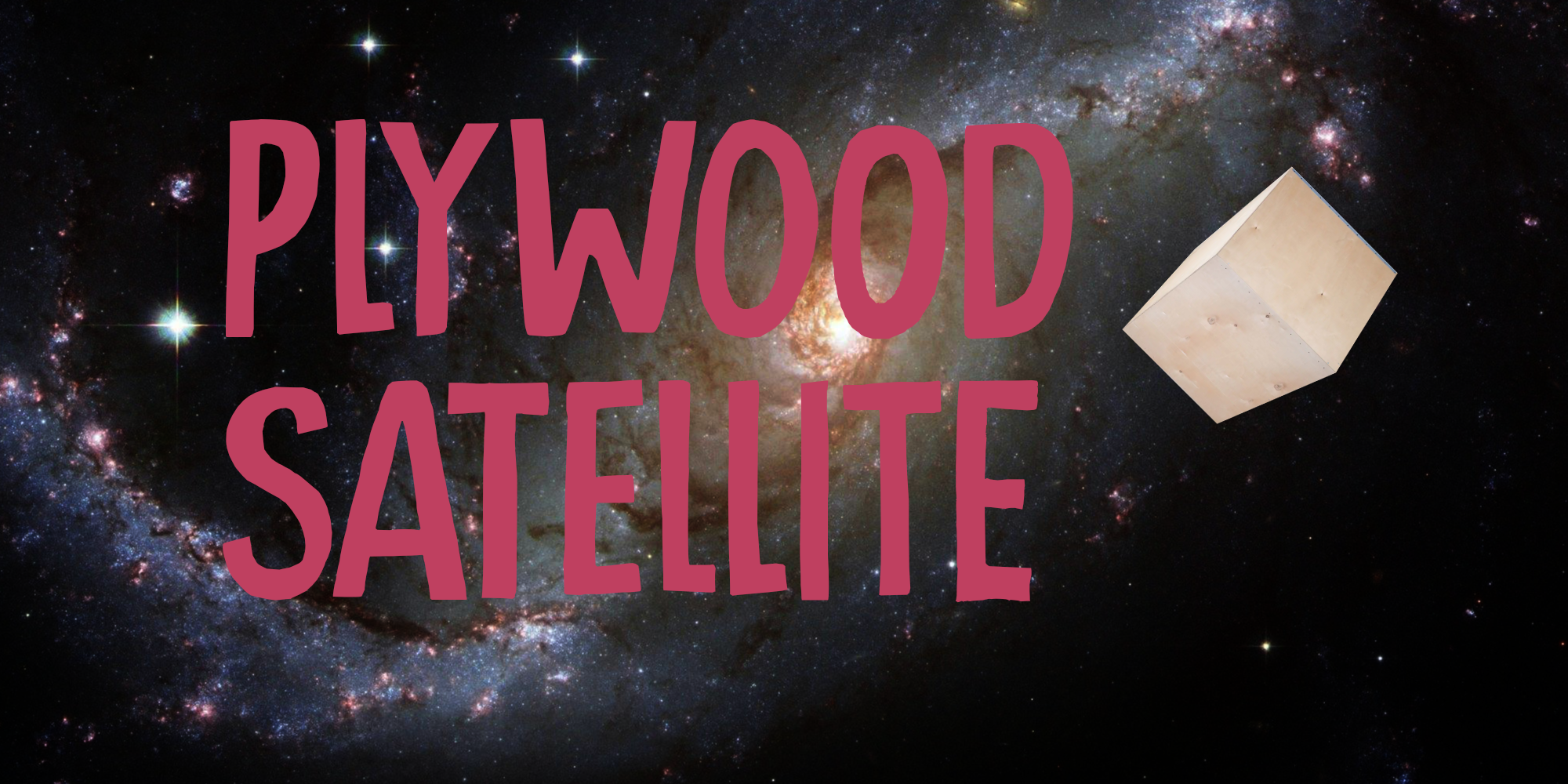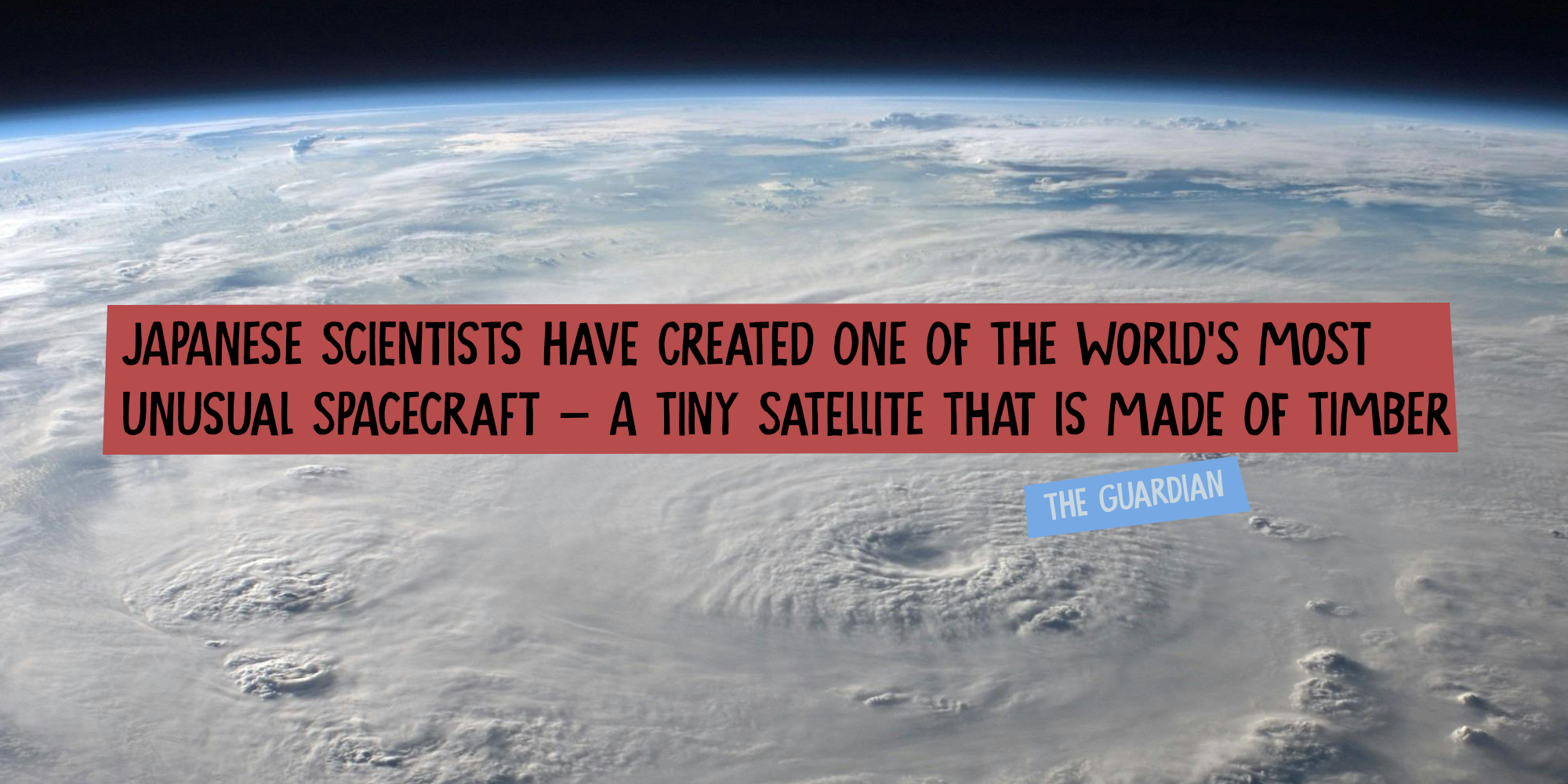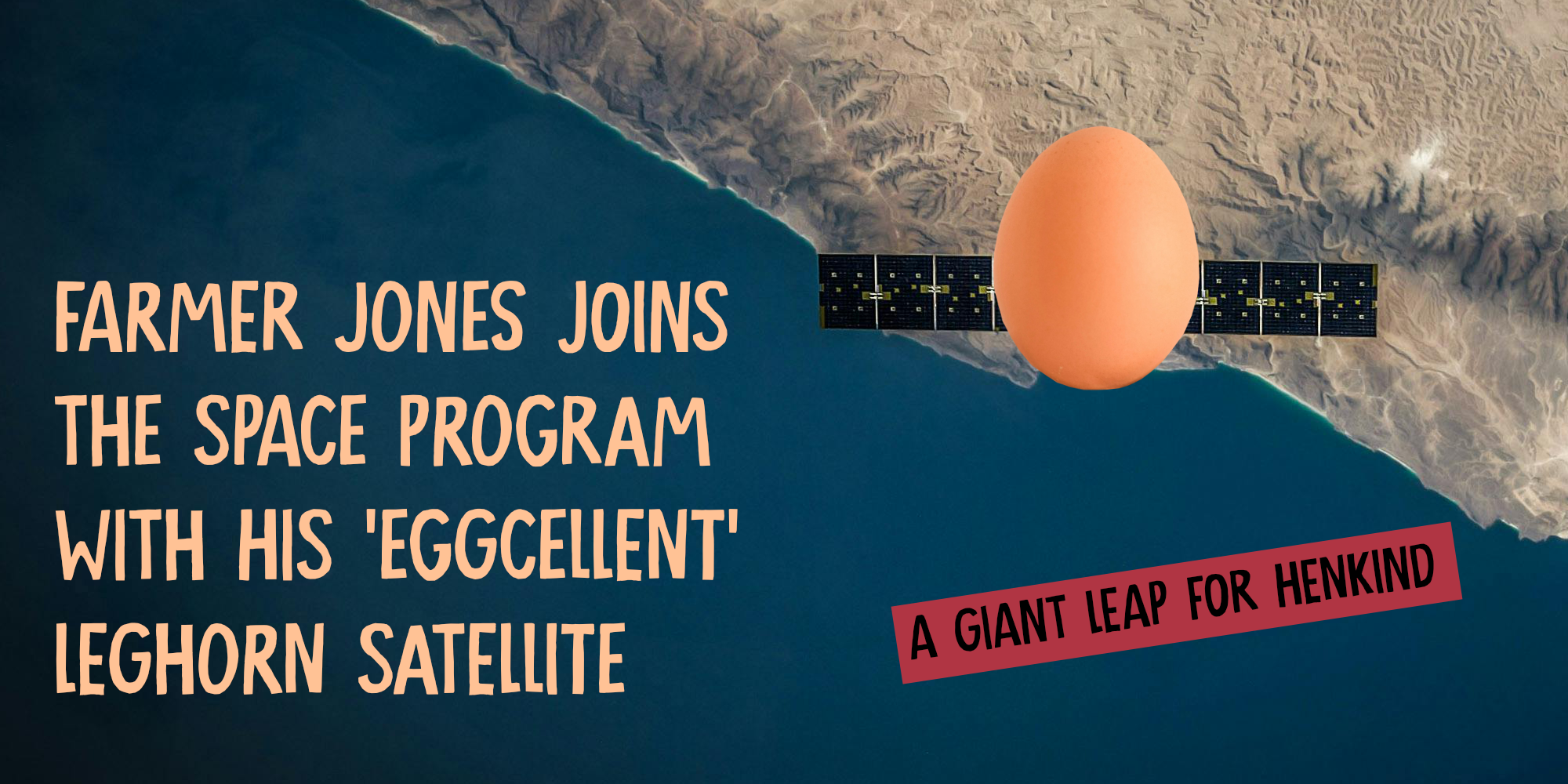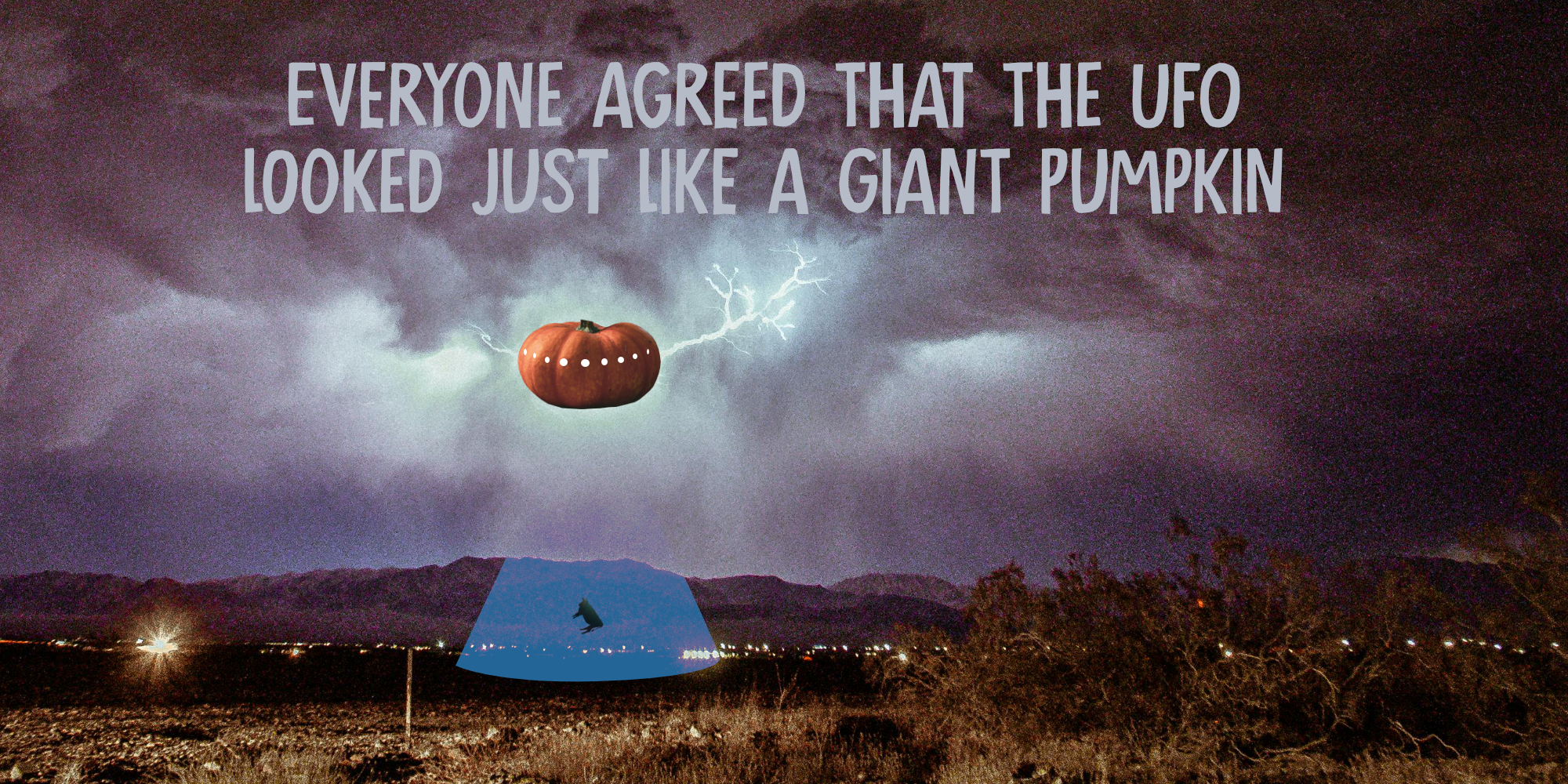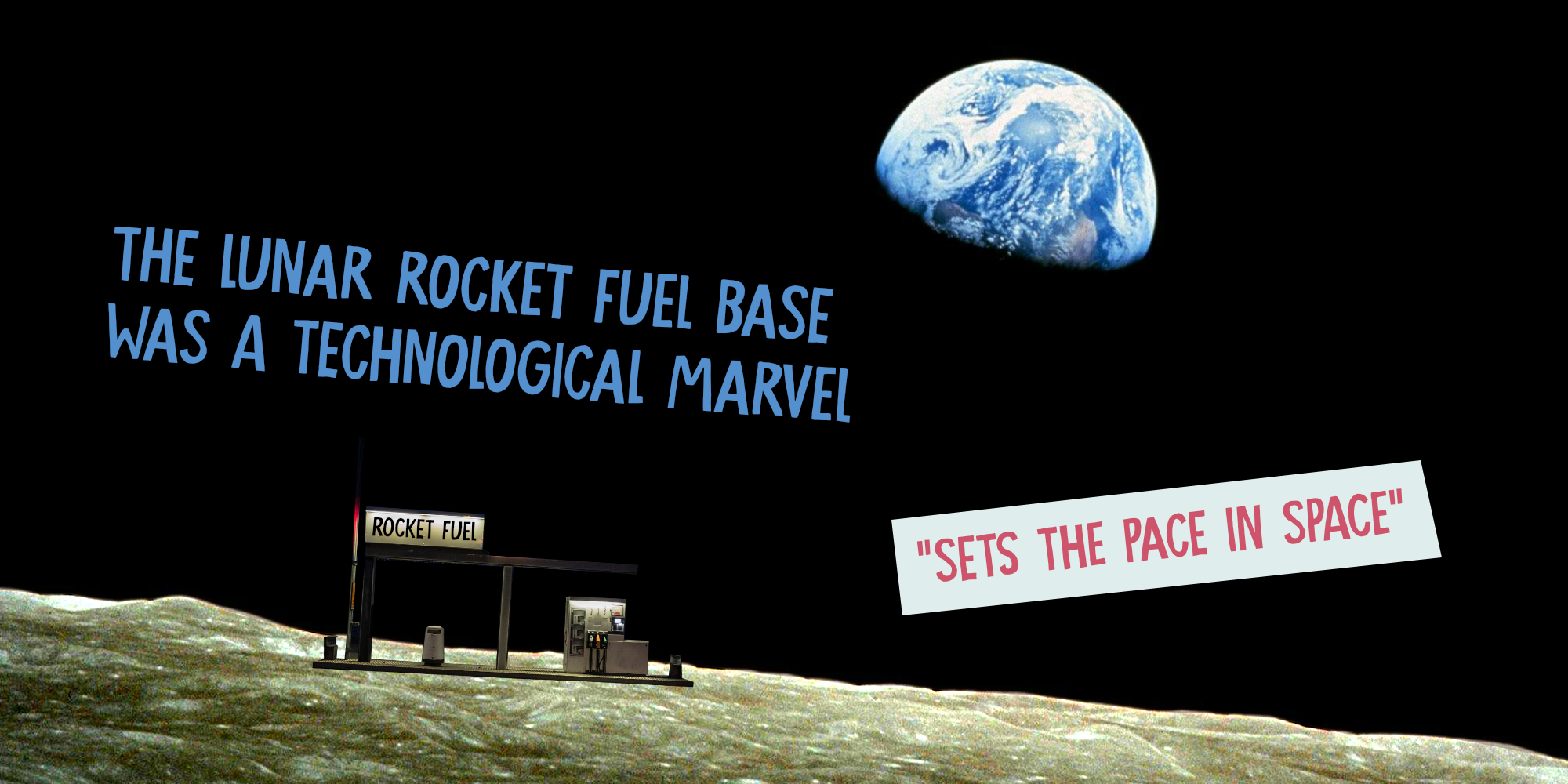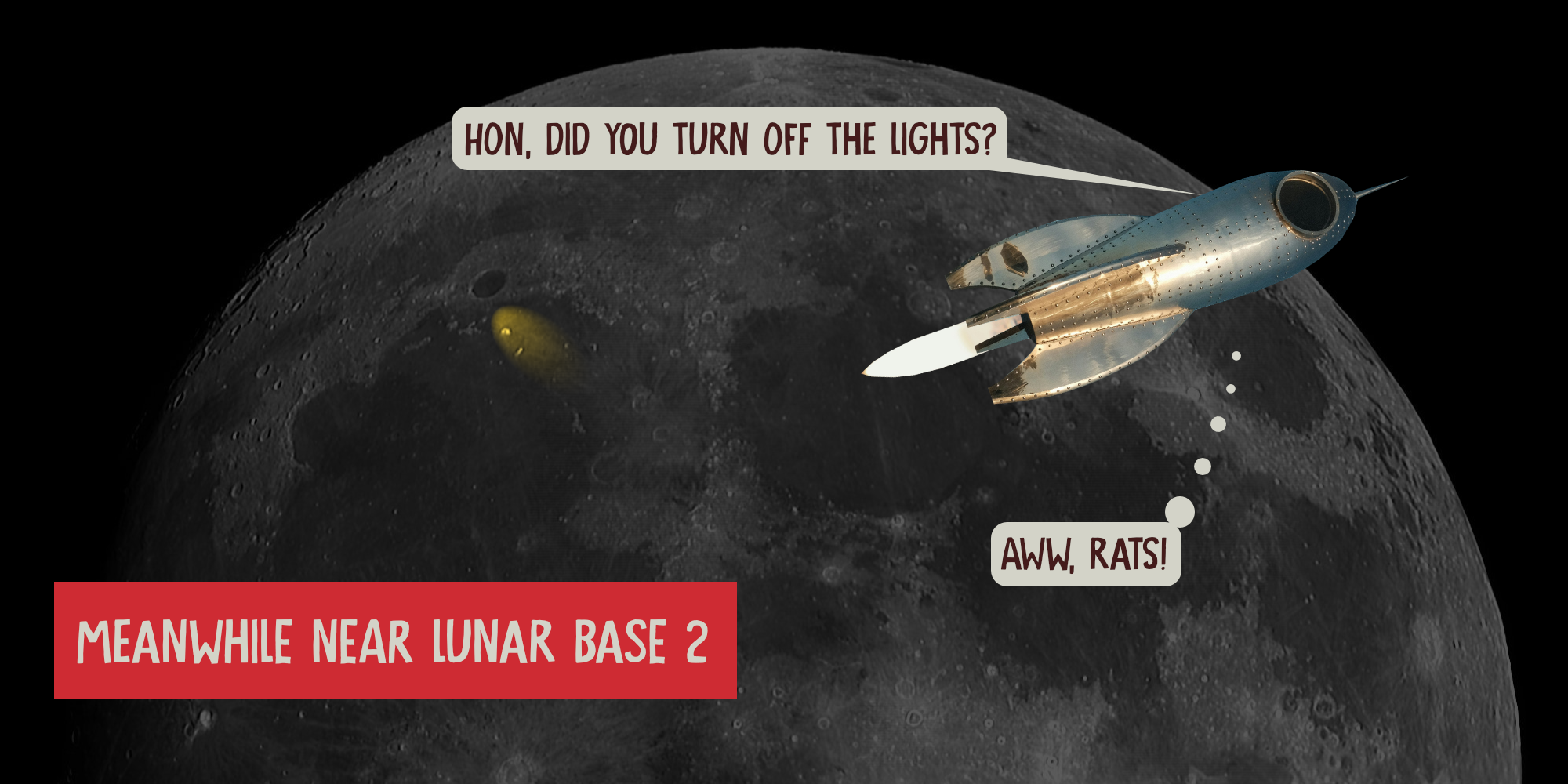
Plywood Satellite (2 fonts)
Plywood Satellite is a handmade, rather rough, all caps font that comes with extensive language support and a set of alternates for the lower case glyphs.